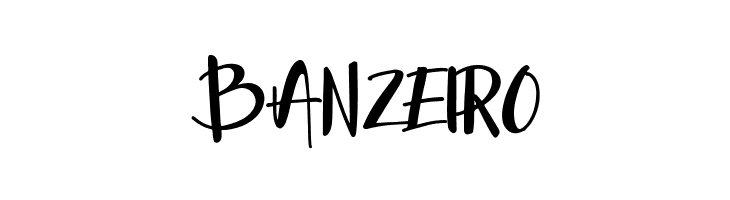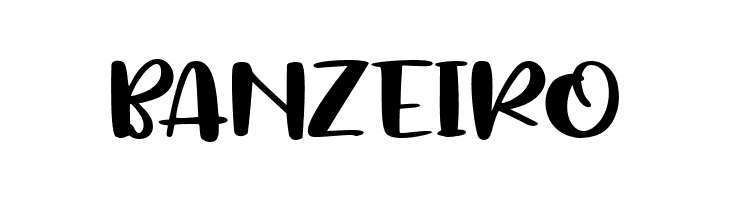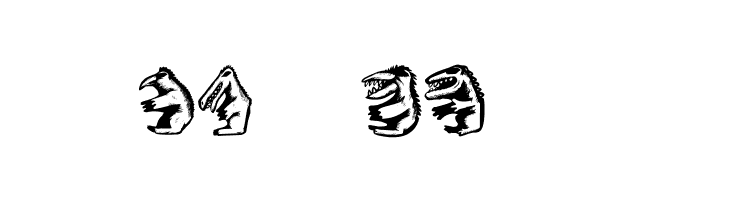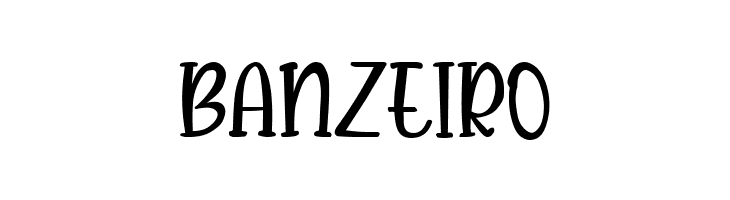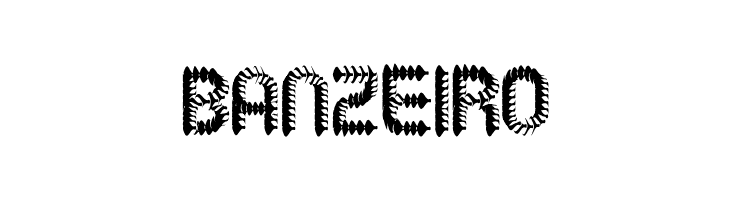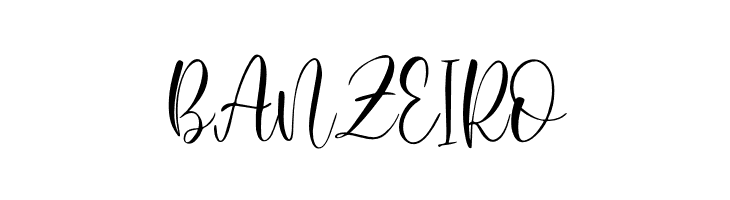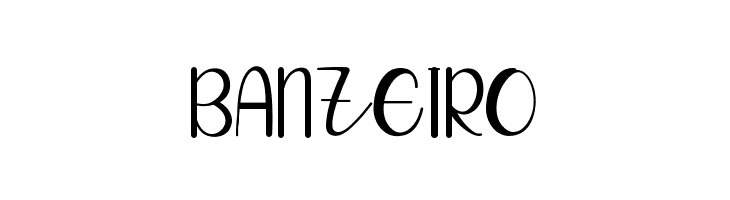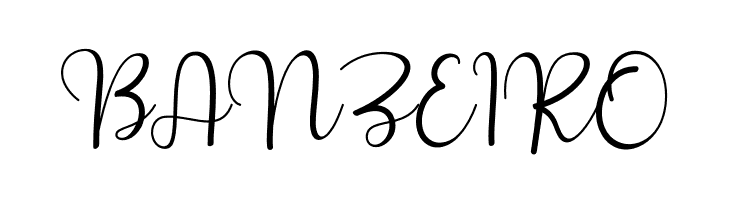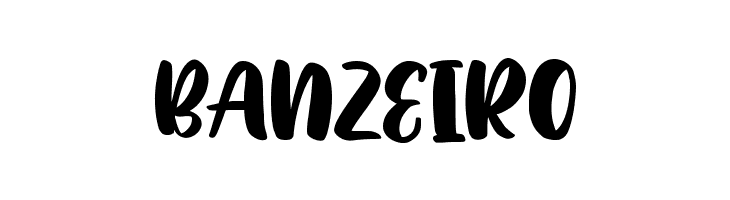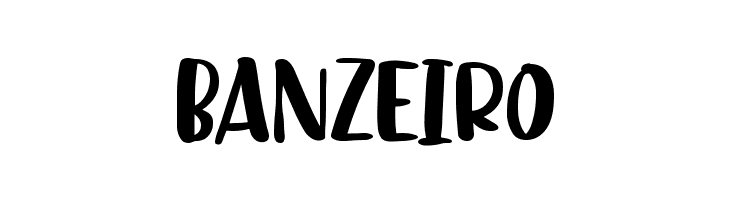
• helen Bold Italic
A bold, italic, modern font with smooth curves and a geometric structure.
• helen Italic
A sleek, modern italic font with a futuristic and fluid design.
• helen-Hollow
A hollow, geometric font with a futuristic and modern design.
• helen-Hollow-Inverse
A modern, hollow, inverse font with geometric and futuristic design.
• helen-Inverse
A modern, geometric font with a sleek and futuristic design.
• helen-Light
A modern, geometric font with a futuristic and minimalist design.
• Helena Sweety
A charming and elegant script font with a handwritten feel.
• Hell Beasts Regular
A bold, decorative font with characters resembling beast heads.
• Hell Door Regular
A bold, decorative font with thorn-like patterns, ideal for gothic or horror themes.
• Hellaween
A quirky, hand-drawn style font with a spooky, playful twist.
• Hellilove
An elegant, flowing script font with ornate uppercase and smooth lowercase letters.
• Hellilove Italic
An elegant, high-contrast script font with flowing, cursive characters.
• Hellington FREE
A bold, expressive handwritten font with playful curves.
• Hello Agatha Serif
A playful, hand-drawn serif font with bold, irregular strokes.
• Hello Amargo
A bold, playful script font with a handwritten feel.
• Hello Amellia
A bold, playful handwritten font with a dynamic and friendly style.
• Hello Angel
A bold, geometric sans-serif font with smooth curves and a modern aesthetic.
• Hello Audrey
A flowing, cursive font with elegant loops and consistent stroke width.
• Hello Avelline
A dynamic handwritten font with fluid, interconnected strokes and a casual, elegant style.
• Hello Avocado
A playful, bold font with rounded, thick strokes and a friendly appearance.
• hello baby
A playful, handwritten font with bold, rounded strokes and a lively appearance.